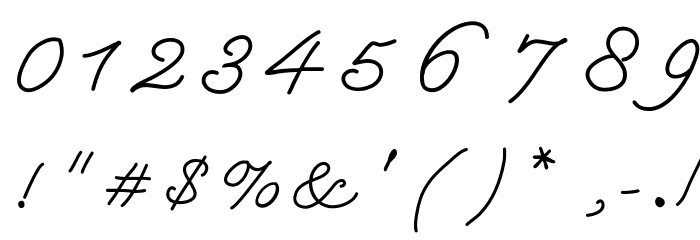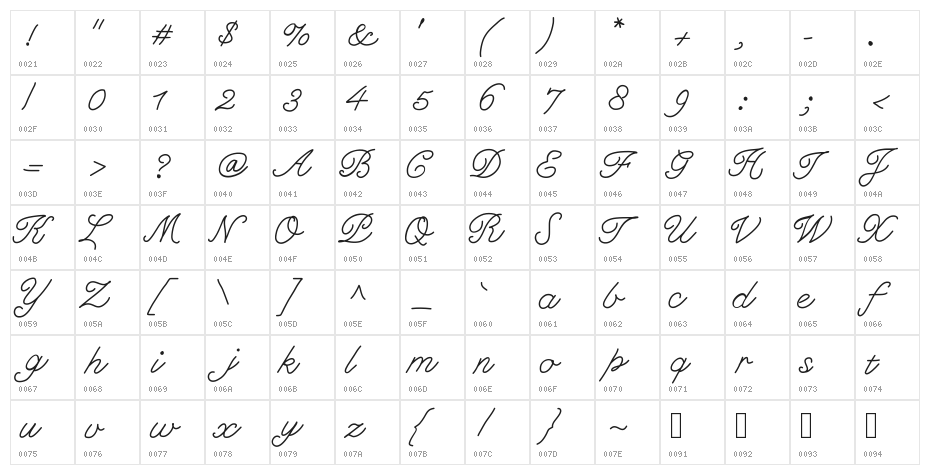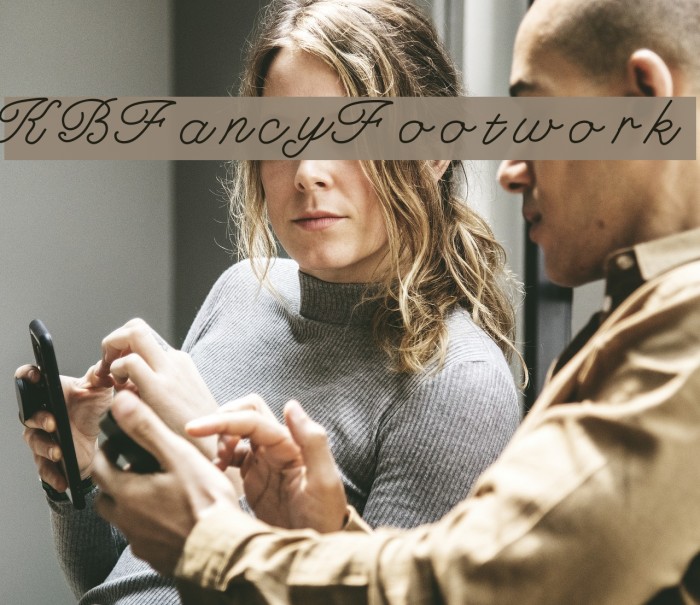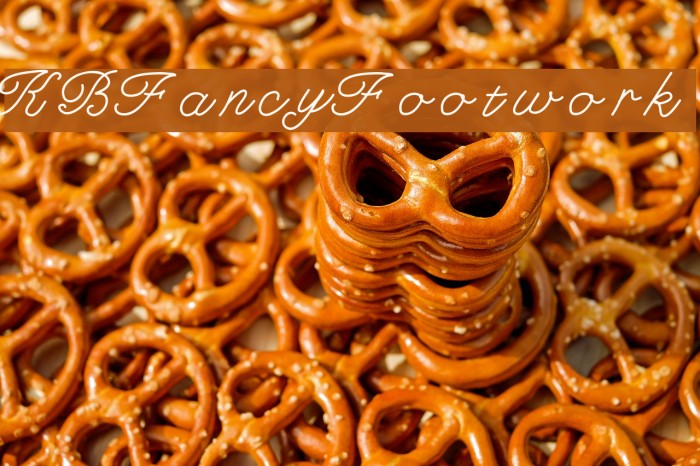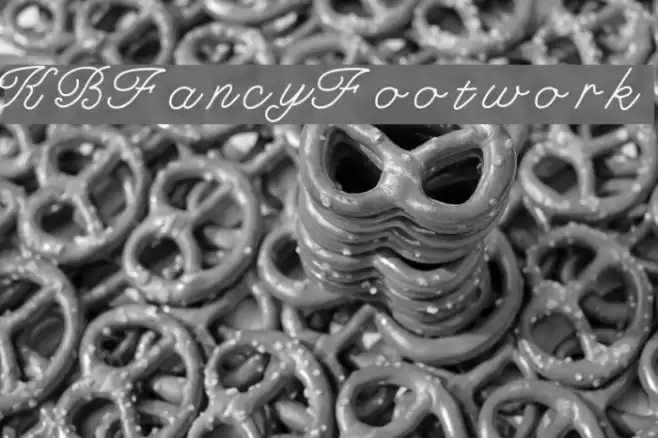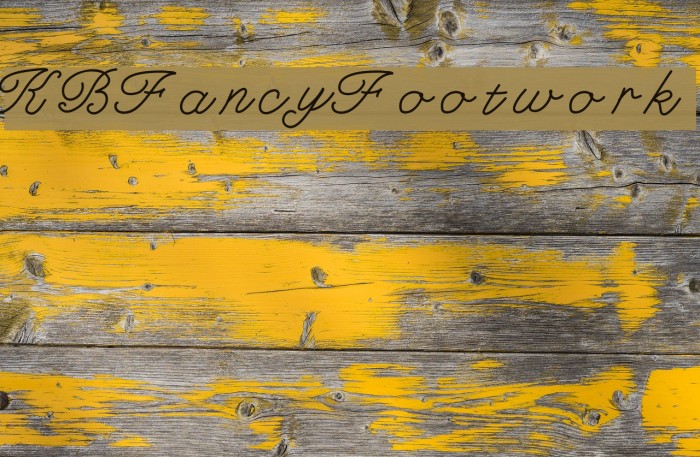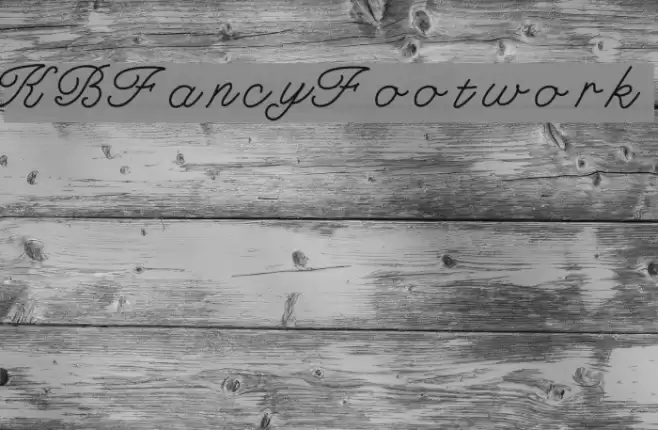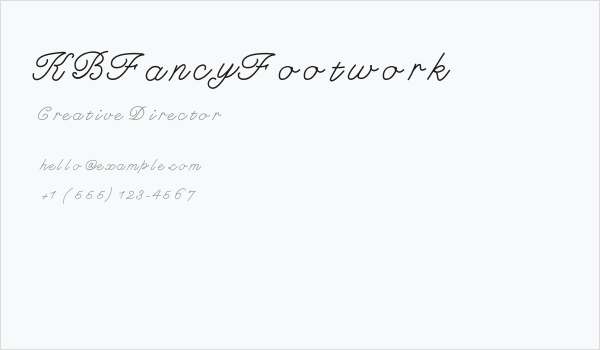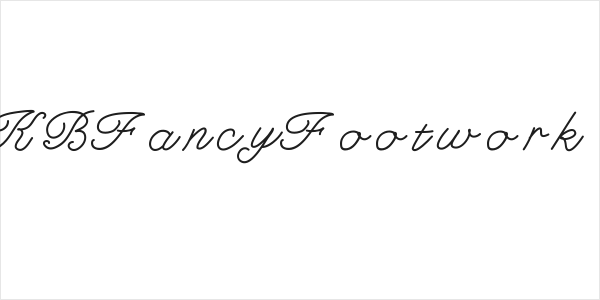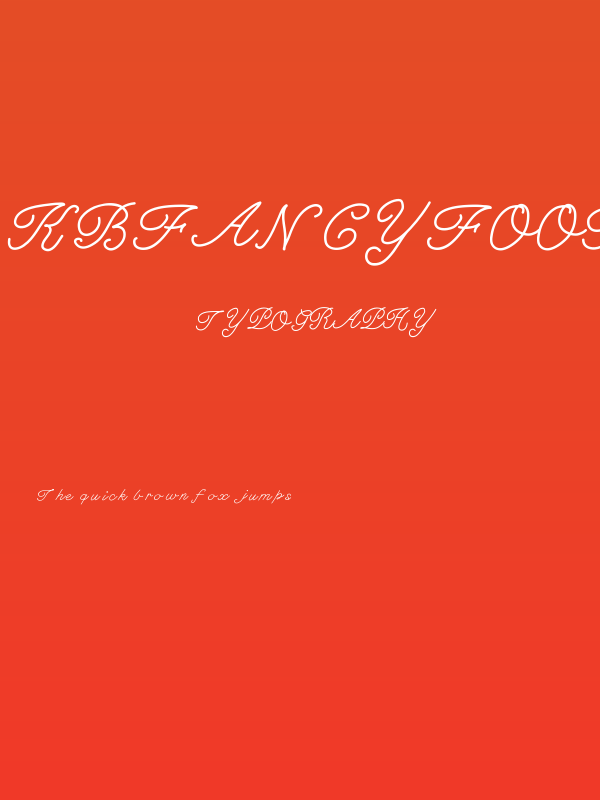
KBFancyFootwork Font
KBFancyFootwork Description
This elegant script font features fluid, cursive strokes that emulate the graceful flow of handwriting. Each character is intricately designed with smooth curves and delicate loops, creating a sense of sophistication and charm. The uppercase letters are slightly more ornate, with flourishes that add a touch of flair, while the lowercase letters maintain a consistent, flowing style. The numerals and special characters are crafted to match the overall aesthetic, ensuring a cohesive look across all text. This font is ideal for projects that require a personal, handwritten touch, such as invitations, greeting cards, and branding materials.
| Use Case | Invitations, Greeting cards, Personal branding |
| Proposed Projects | Ideal for wedding invitations, greeting cards, personal branding, and elegant stationery. |